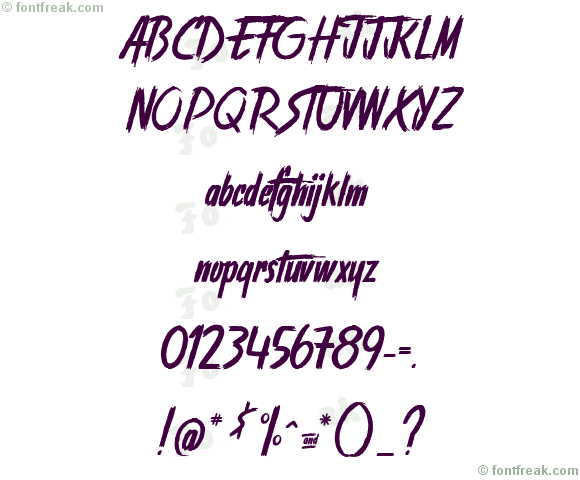
Stranger back in the Night
About Stranger back in the Night
Stranger back in the Night by Agathe M. Joyce is a captivating display font that embodies an artistic flair suitable for a variety of creative projects. This decorative font features a unique brush script style, characterized by its fluid strokes and expressive letterforms. The stroke weight varies throughout the characters, providing a dynamic visual contrast that adds depth and interest. The slightly irregular spacing enhances its hand-crafted feel, making it perfect for projects that call for a personal touch.
This font shines in specific use cases, such as movie posters where a dramatic or mysterious vibe is desired. It can also elevate restaurant menus, particularly for establishments that aim for a modern, artistic aesthetic. Wedding invitations benefit from its romantic and whimsical style, creating an inviting and elegant atmosphere. Additionally, it serves well in social media graphics and promotional materials for creative businesses looking to stand out.
What sets the Stranger back in the Night font apart is its ability to evoke a sense of nostalgia and intrigue, making it memorable and impactful. It effectively captures the essence of the night, drawing viewers in with its artistic charm. For those interested in this unique typeface, the Stranger back in the Night font free download offers an exciting opportunity to elevate your design work with a touch of creativity and flair.